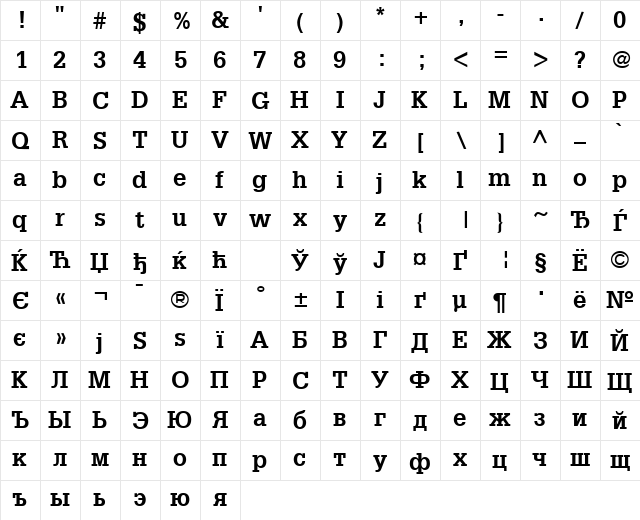
AGGloria Bold
Design Context for AGGloria Typeface
AGGloria is a composed and adaptable typeface that performs quietly and consistently across a wide range of design contexts. The heavy weight commands attention and anchors typographic hierarchies.